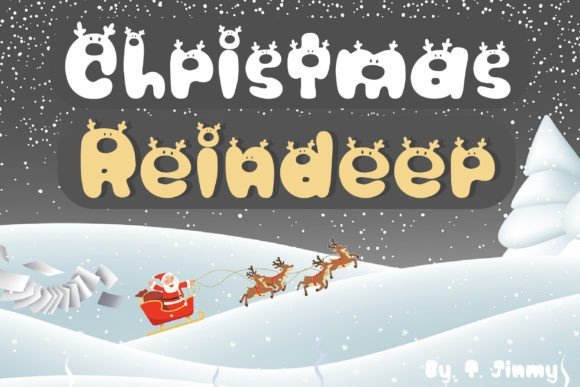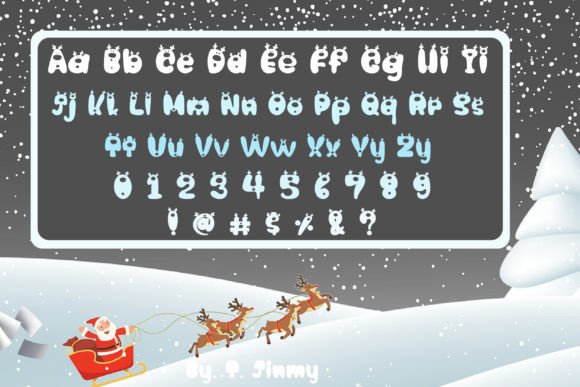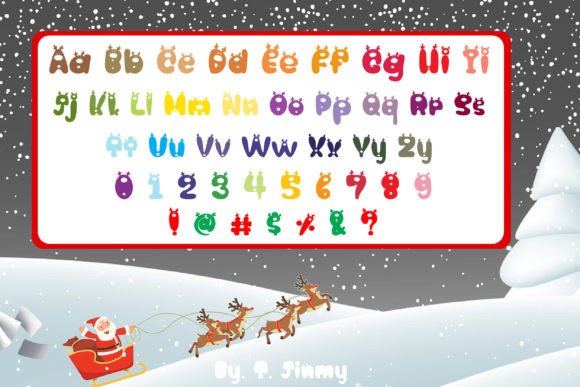
Deck the Halls with Holiday Cheer
As the snowflakes start to fall and the fireplace crackles to life, we can’t help but feel the magic of the holiday season. It’s the perfect time to break out the festive decorations, bake some sweet treats, and get creative with our designs. Whether you’re a seasoned graphic designer or a crafty DIY enthusiast, there’s something special about capturing the spirit of Christmas in our work.
That’s where the Christmas Reindeer Font comes in – a delightful, decorative font that’s sure to add a touch of whimsy and wonder to your designs. From logos and branding to social media posts and crafty projects, this font is the perfect fit for anyone looking to spread holiday cheer. And as a designer, you know how valuable it is to have a versatile font that can add a personal touch to your work.
Key Features of Christmas Reindeer Font
- Unique Characteristics: The Christmas Reindeer Font features a playful, hand-drawn design with intricate details and ornaments, perfect for adding a festive touch to holiday designs.
Designer Review: Christmas Reindeer Font
The Christmas Reindeer Font is a unique and playful font that’s sure to add some festive cheer to your designs. ✨ The font’s quirky reindeer characters and fun, swirly details make it perfect for holiday-themed projects like cards, posters, and social media graphics.
One of the strengths of this font is its versatility. ✨ It can be used for a wide range of applications, from casual, handwritten-style projects to more formal, traditional designs. The font also comes in a range of weights and styles, making it easy to customize to suit your needs.
- ⚠️ The font may be too whimsical for more formal or corporate designs, and may not be suitable for projects that require a more serious tone.
- ⚠️ The font’s character set is limited, which may make it difficult to use for longer blocks of text or for projects that require a wide range of characters.
Overall, the Christmas Reindeer Font is a fun and festive addition to any designer’s toolkit. While it may have some limitations, its unique style and versatility make it a great choice for holiday-themed projects and designs that require a playful touch.
Practical Application Guide for Christmas Reindeer Font
Use Christmas Reindeer Font for:
1. Holiday invitations and cards.
2. Seasonal social media graphics.
3. Christmas-themed blog posts and articles.
4. Festive advertising and promotional materials.
For maximum impact, pair the font with bright colors and festive graphics.